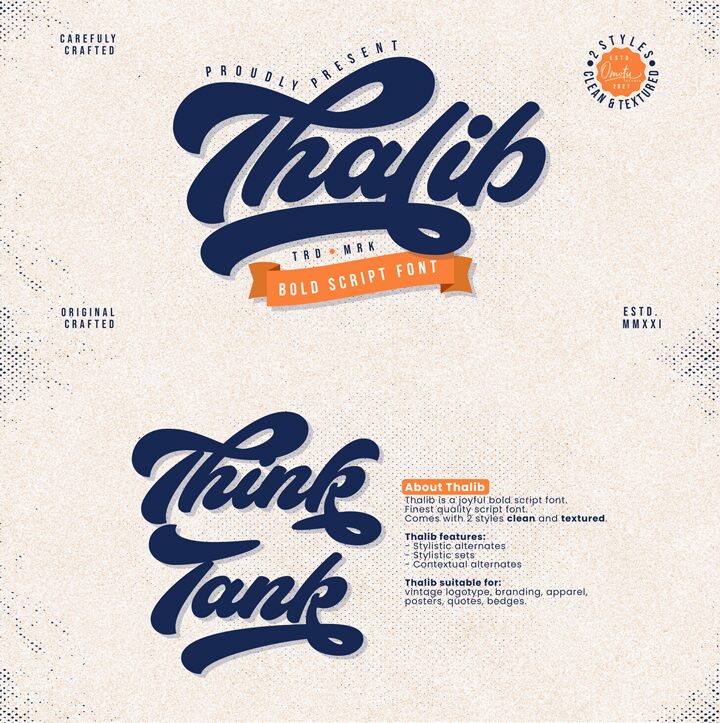
Introducing Thalib Textured, a bold eroded smooth brush font from the Thalib family, designed by Ibnu Utomo. This distinctive display font brings texture and character to any project. From logos to posters, the unique eroded brush style can add an eye-catching creative flair. It's perfect for projects that require a touch of individuality and style.